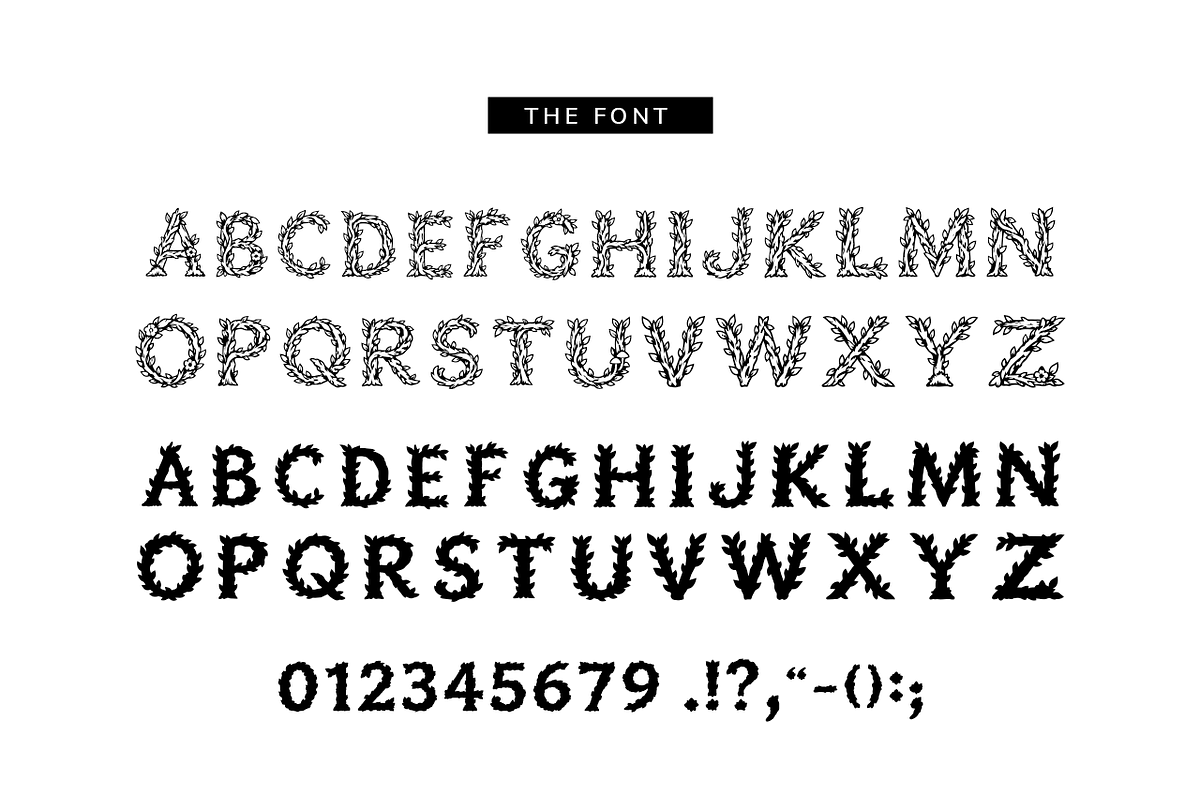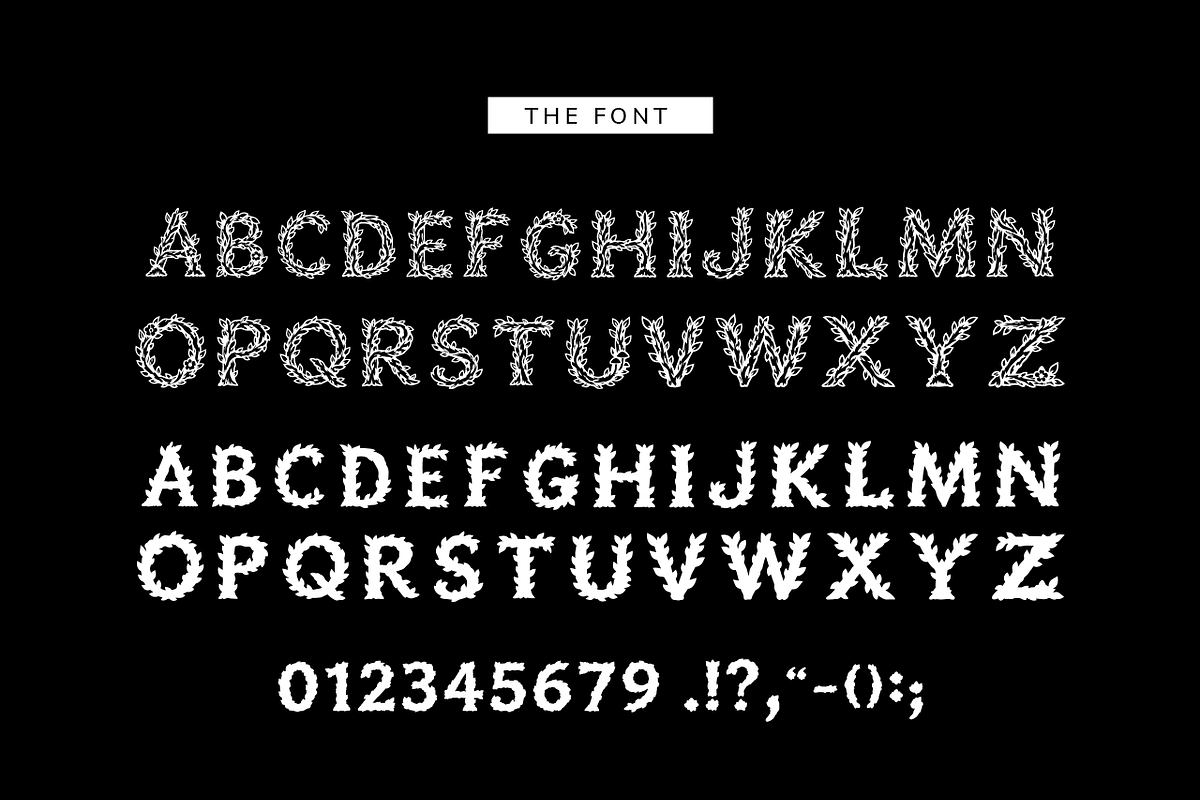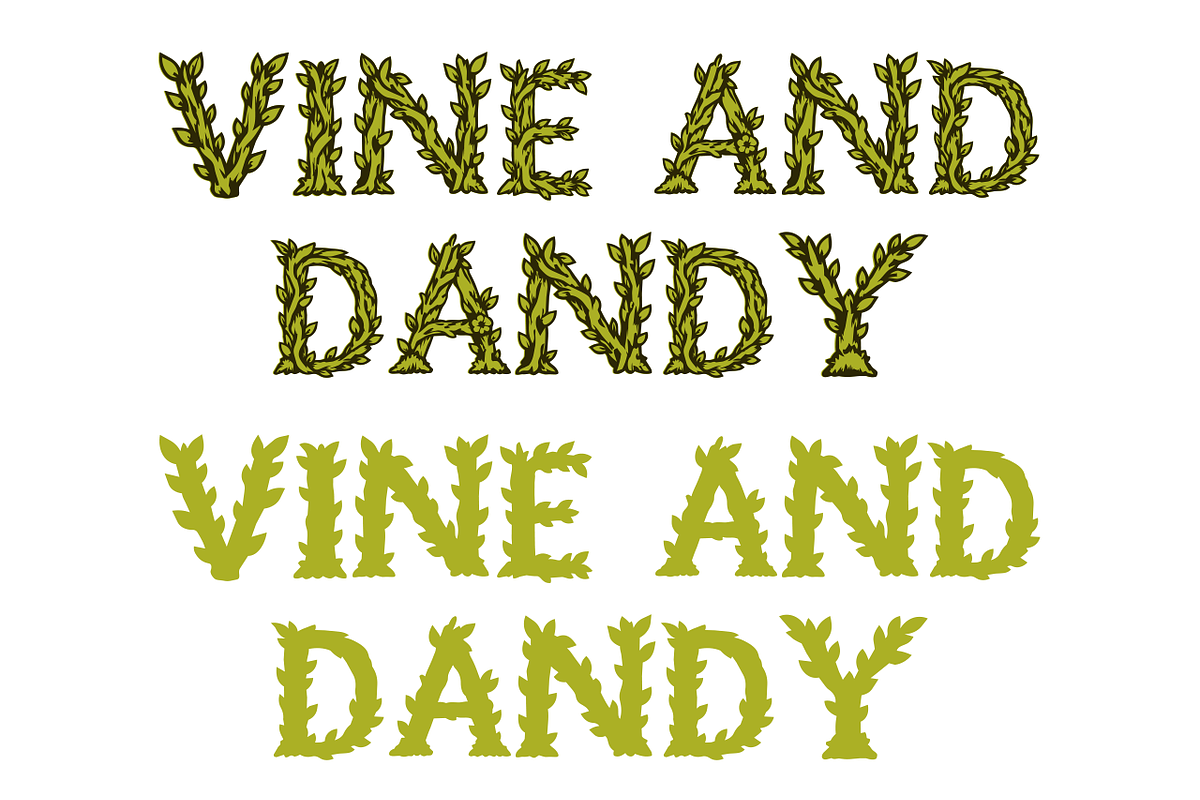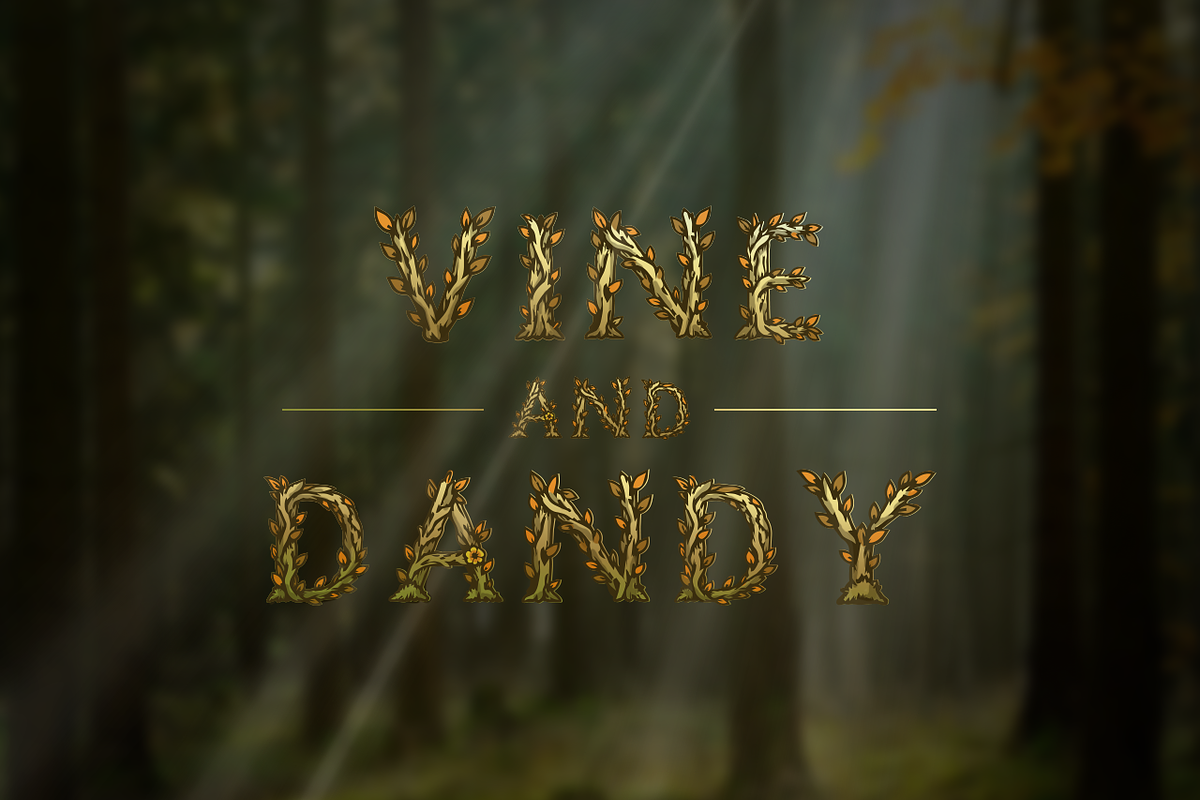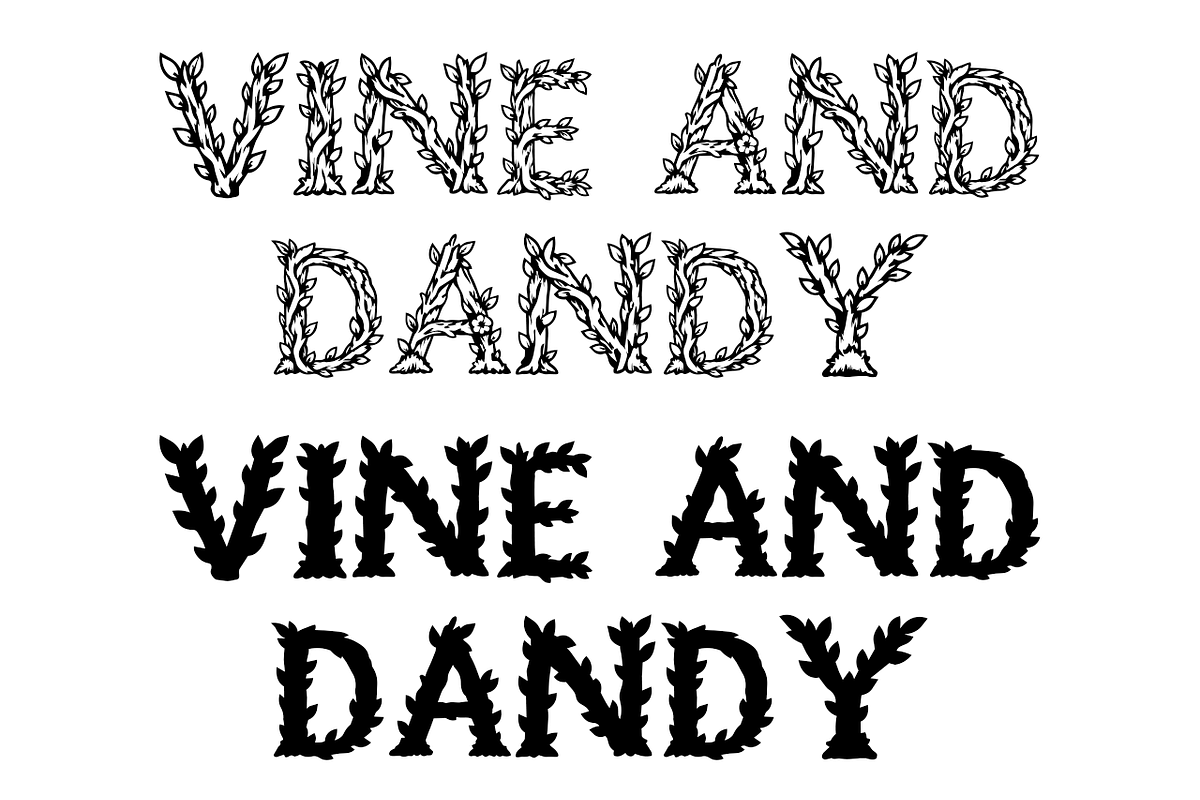
Vine & Dandy
Vine and Dandy — A Whimsical Botanical Display Font
Let your designs grow wild with Vine and Dandy — a playful, nature-inspired font with a charming botanical personality. With organic curves, decorative details, and a touch of vintage garden whimsy, Vine and Dandy is perfect for designs that need something a little more unusual.
Whether you're creating signs, invitations, logos, labels, crafts, apparel, or digital artwork, Vine and Dandy brings a fresh, hand-crafted feel to your projects.
🌿 TWO STYLES INCLUDED
Outline Version A versatile outlined style that's perfect for adding your own colors, patterns, textures, gradients, and effects. Great for layered designs and creative editing.
Solid Version A bold, ready-to-use version for clean, eye-catching designs when you want your lettering to make an immediate impact.
Having both versions gives you plenty of creative freedom — use them separately or combine them for unique layered effects.
Vine and Dandy is made for designers, crafters, and creatives who like their lettering with a little personality — and perhaps a few weeds around the edges. 🌿